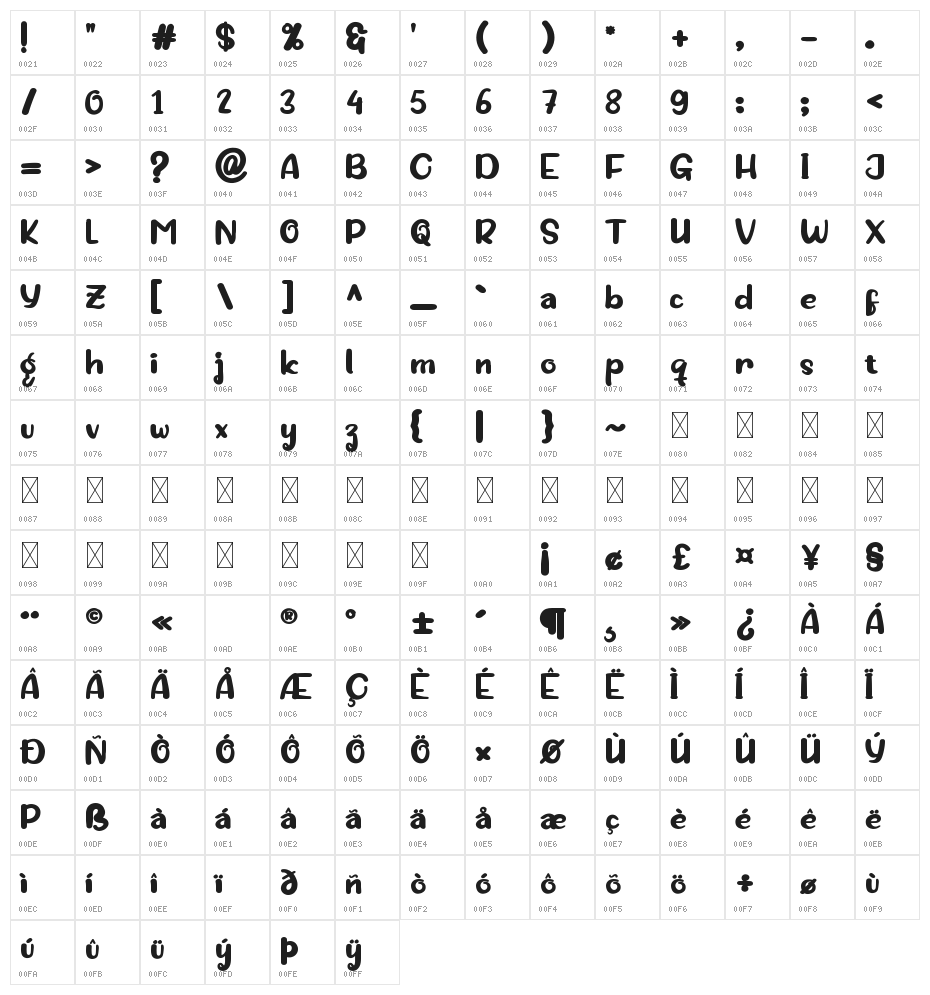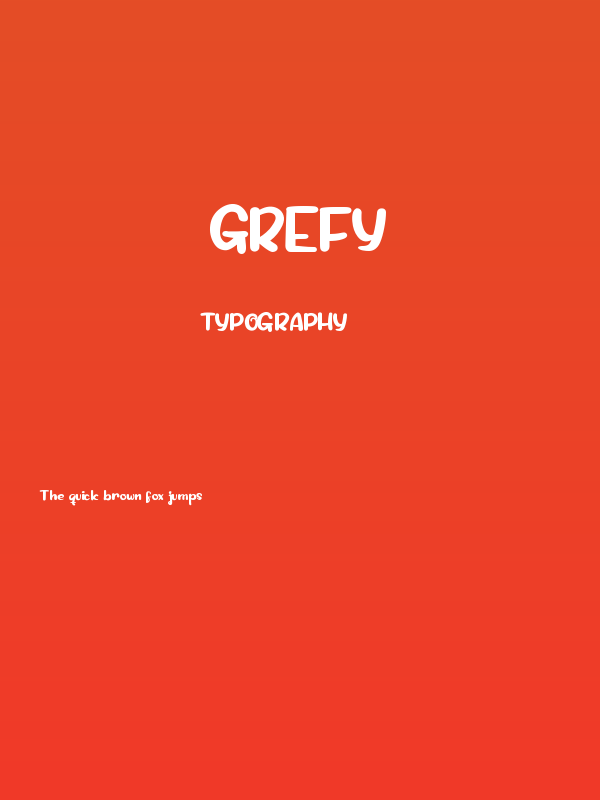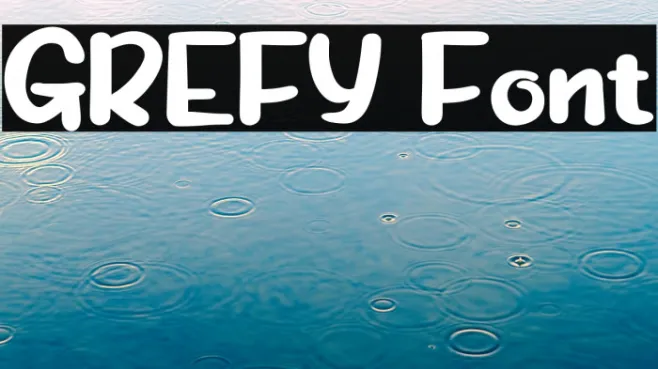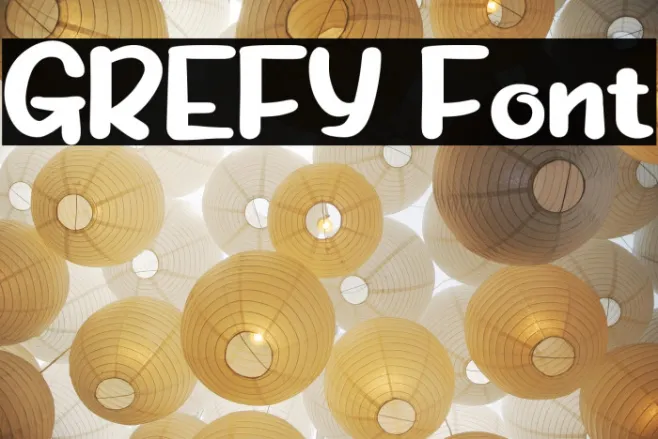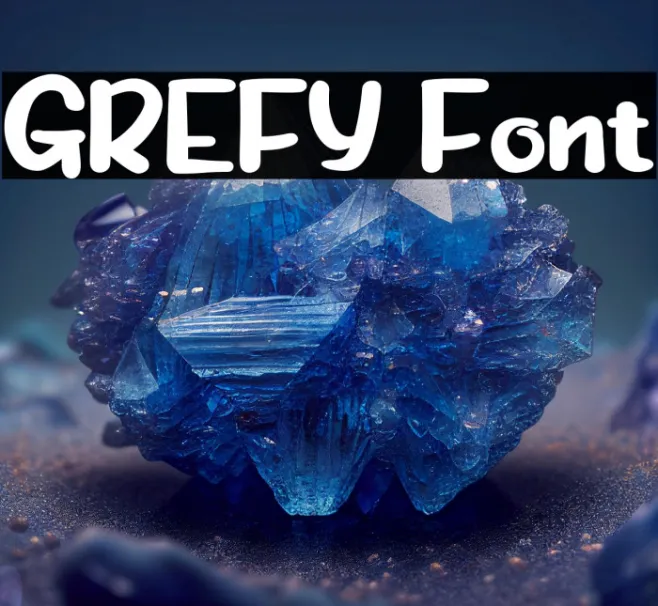
GREFY Font
GREFY Description
This playful and bold font features rounded, thick strokes that give it a friendly and approachable appearance. The characters are slightly whimsical, with a hand-drawn feel that adds a touch of personality and charm. The uppercase and lowercase letters maintain a consistent style, with smooth curves and a uniform thickness throughout. The numbers and special characters follow the same design principles, ensuring a cohesive look across all elements. The font's boldness makes it highly legible and suitable for attention-grabbing designs.
| Proposed Projects | Ideal for children's books, playful branding, posters, and social media graphics. |